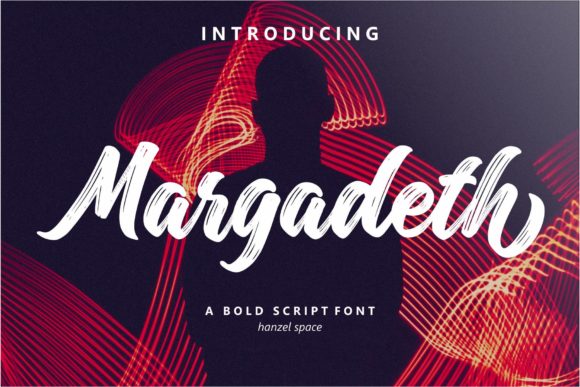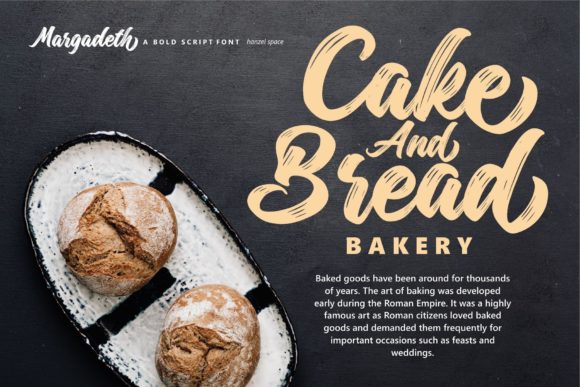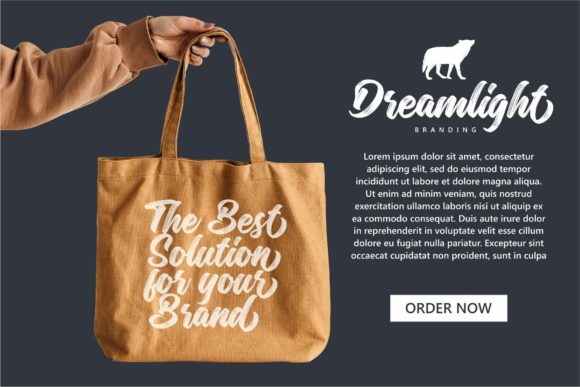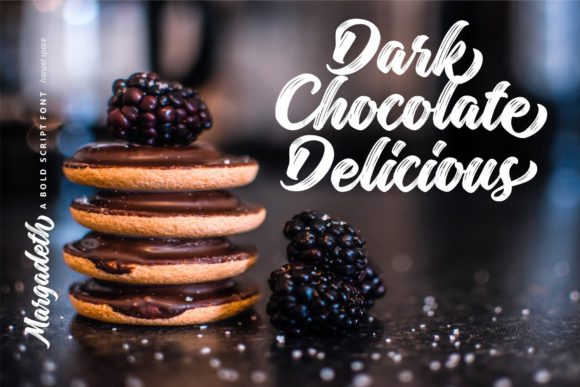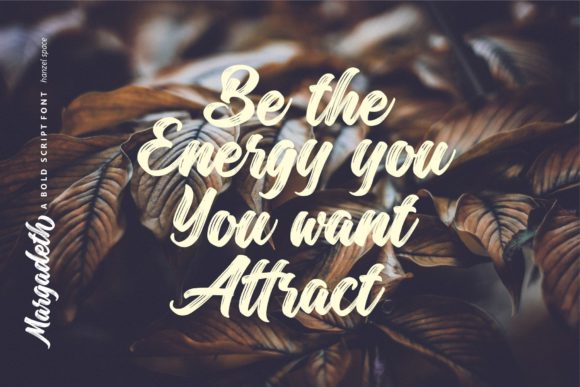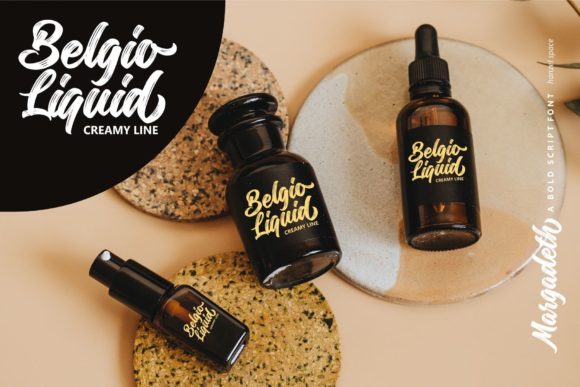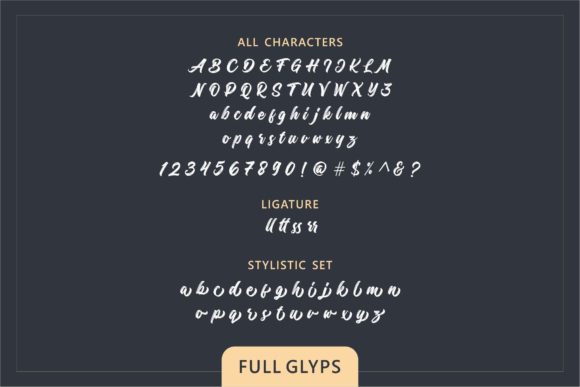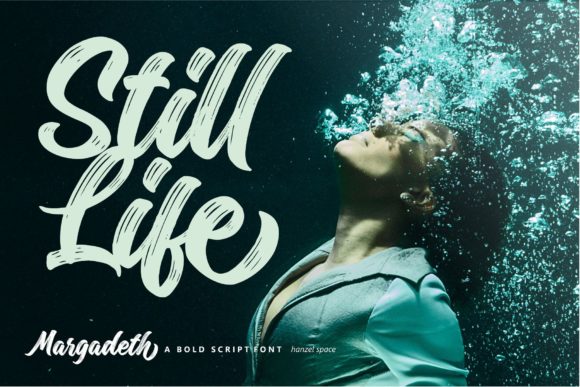
Margadeth Script Font
About Margadeth Script Font
Margadeth Script is a gorgeous and bold handwritten font, crafted to give your headlines and logotype projects a retro touch. This font is PUA encoded which means you can access all glyphs and swashes with ease!